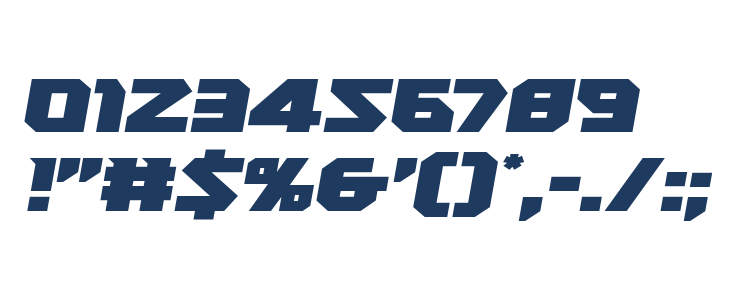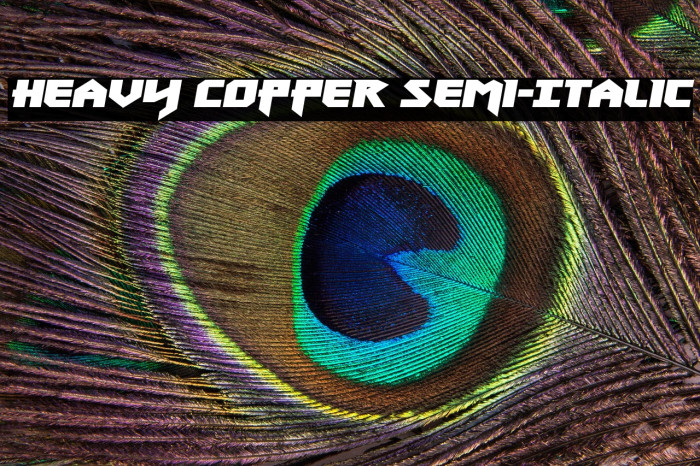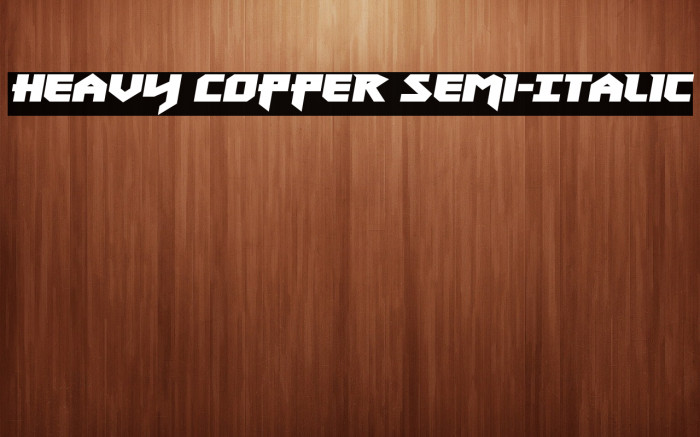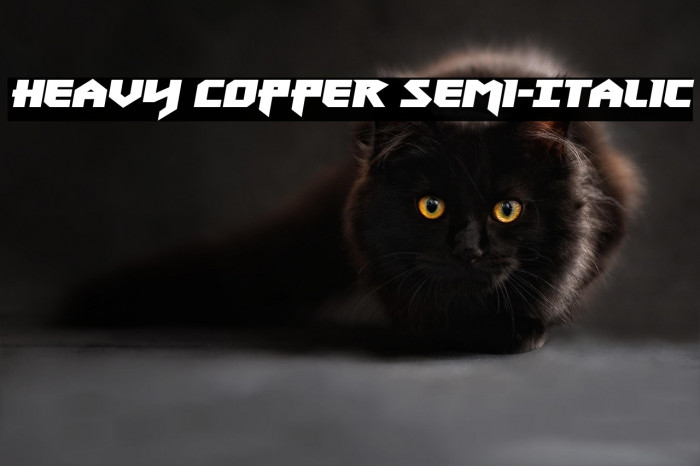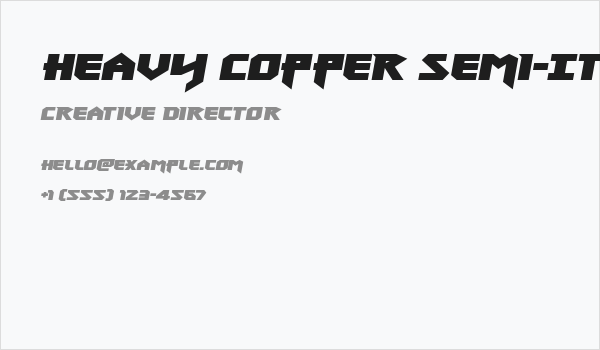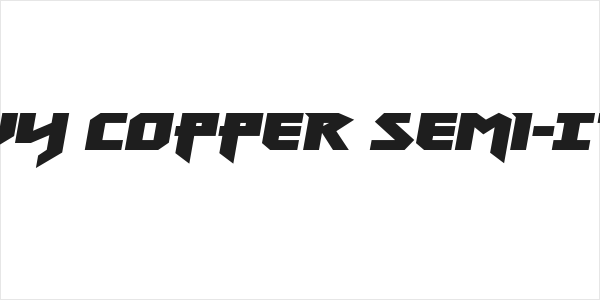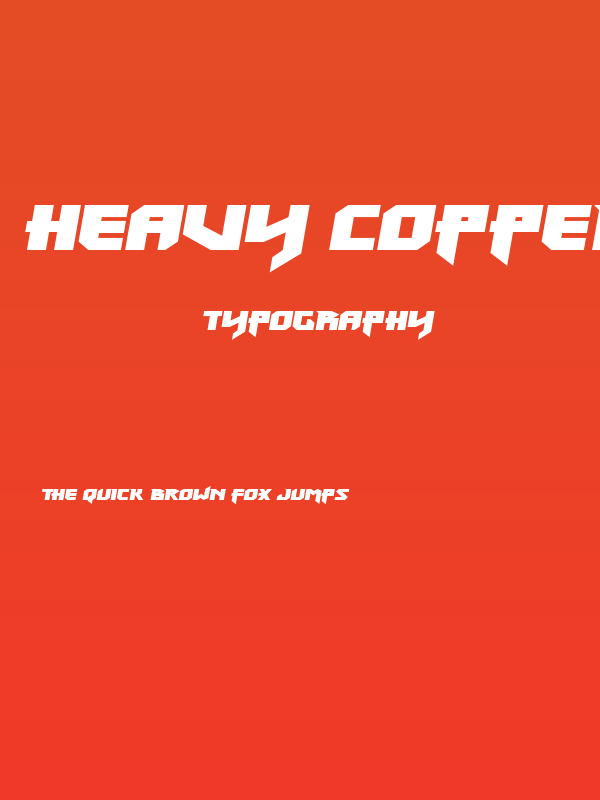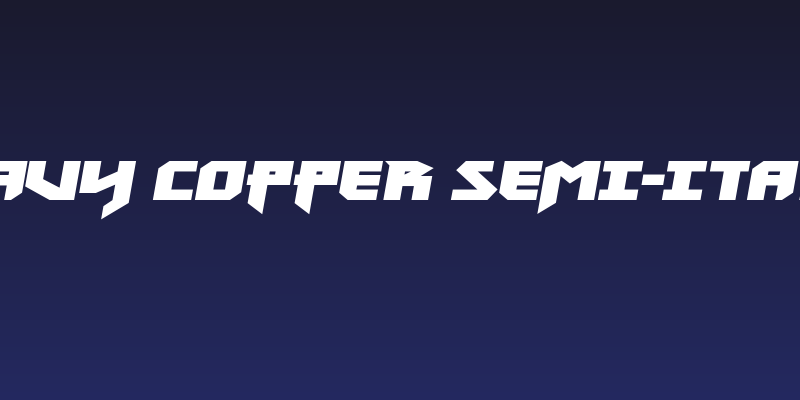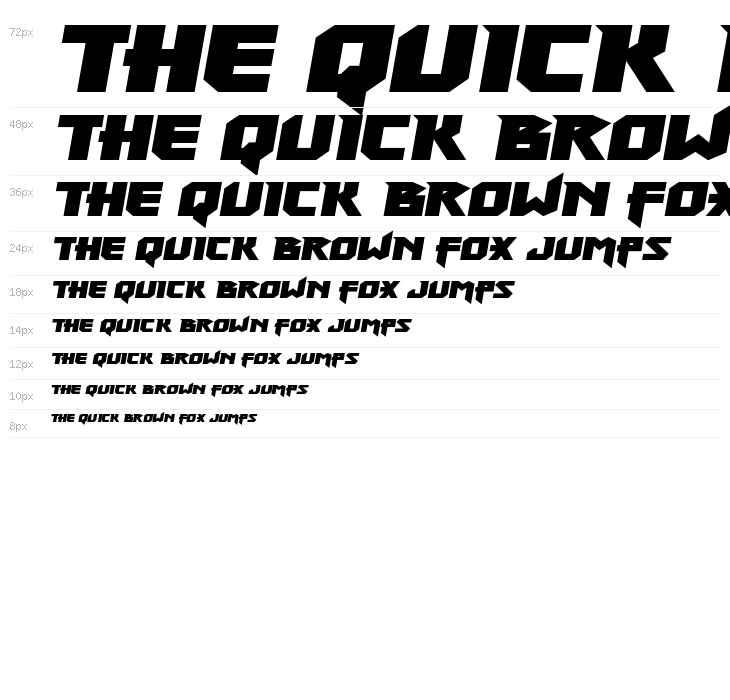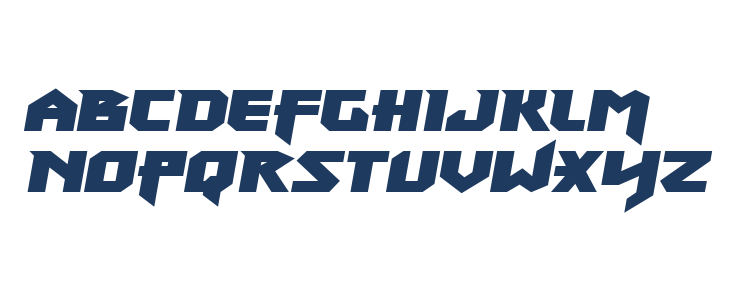
Heavy Copper Semi-Italic Font
Heavy Copper Semi-Italic Description
This font features a bold and angular design, characterized by its sharp edges and geometric shapes. The letters are heavily stylized, giving them a futuristic and aggressive appearance. The semi-italic slant adds a dynamic feel, enhancing the sense of motion and energy. The uppercase and lowercase letters maintain a consistent style, with the lowercase being slightly smaller but equally bold. Numbers and special characters follow the same design principles, ensuring uniformity across all glyphs. The overall look is striking and attention-grabbing, making it suitable for impactful designs.
Proposed ProjectsIdeal for video game titles, sports branding, sci-fi posters, and edgy graphic designs.